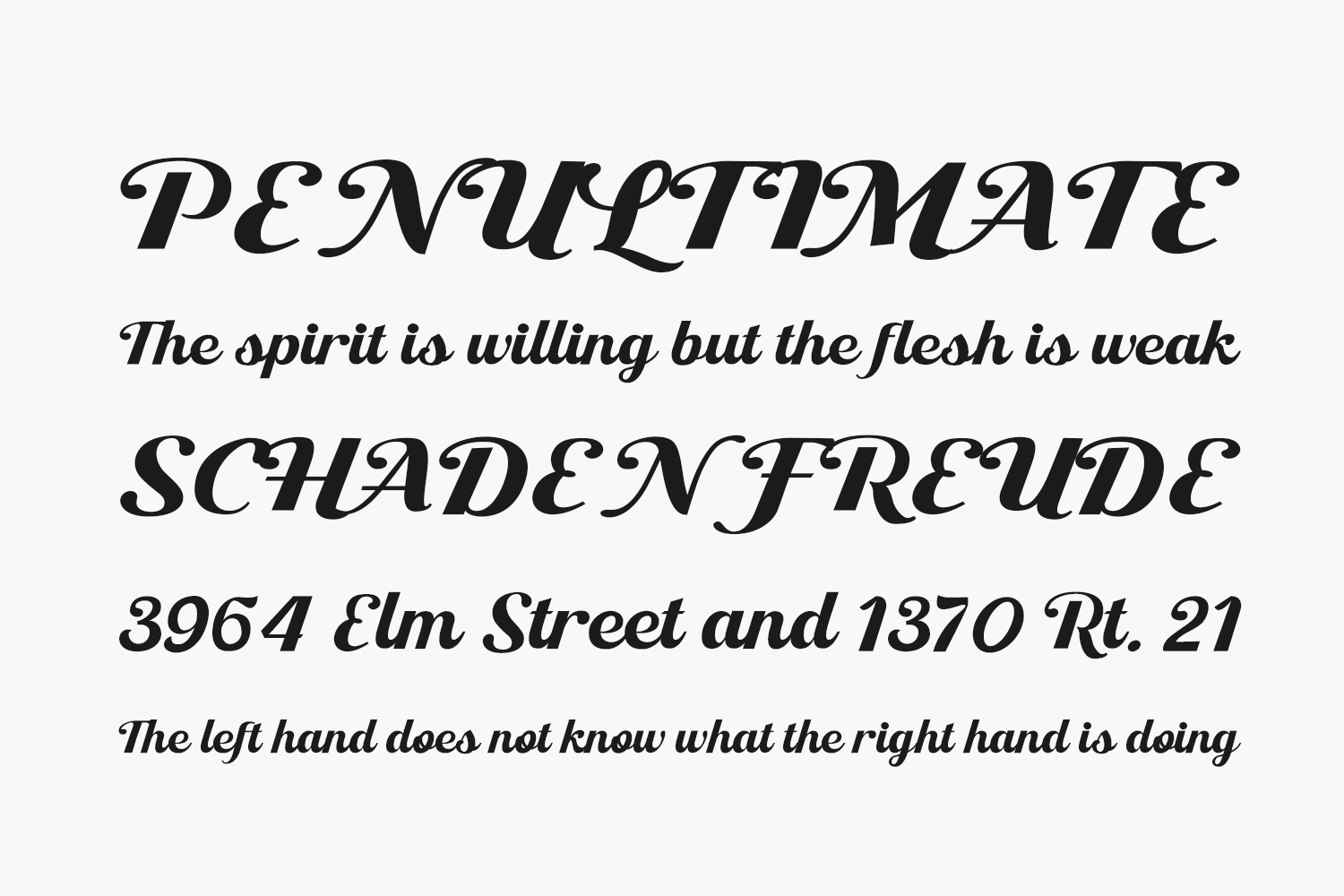
Anatasha is a stylish and nostalgic handwritten script font designed by Mocha Frappuccino to bring back the charm of vintage cursive writing. With its flowing strokes, connected letterforms, and retro personality, this free font works perfectly for crafting classic logos, greeting cards, personalized stationery, and branding projects that evoke a sense of history and warmth. Available in OTF format — demo version includes 106 glyphs with support for Latin characters. Ideal for designers seeking a retro-style script font with personal use rights.
Why Choose Anatasha?
- Vintage Handwritten Style: Mimics old-school handwriting with smooth curves and elegant connections for a nostalgic look.
- Ideal for Retro Branding: Perfect for vintage logos, signage, or design themes that celebrate the past.
Where to Use Anatasha?
Anatasha shines across a variety of creative applications:
- Retro Logos & Branding: Adds character to vintage brand identities, old-school cafes, or throwback packaging labels.
- Greeting Cards: Perfect for handmade cards, thank-you notes, or personalized letters with a warm, human touch.
- Wedding Invitations: Brings soft elegance to RSVP cards, vintage-themed events, or rustic wedding designs.
- Social Media Graphics: Creates bold text overlays for Instagram Stories, Pinterest pins, or TikTok videos with a nostalgic vibe.
- Packaging Design: Great for artisanal goods, bakery labels, or boutique branding needing a retro script style.
Design Tips with Anatasha